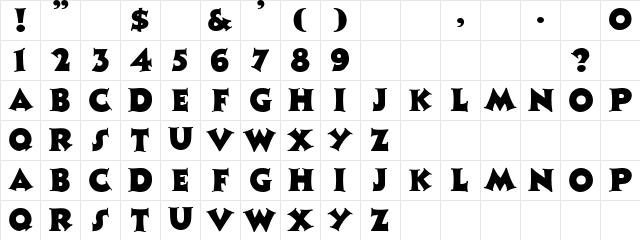
Zaleski A
Design Context for Zaleski Typeface
Zaleski is a composed and adaptable typeface that performs quietly and consistently across a wide range of design contexts.